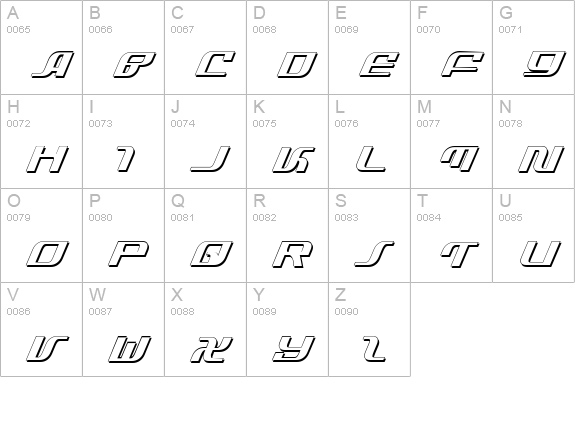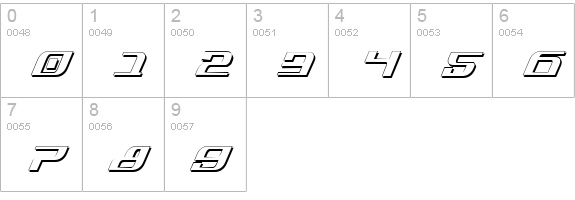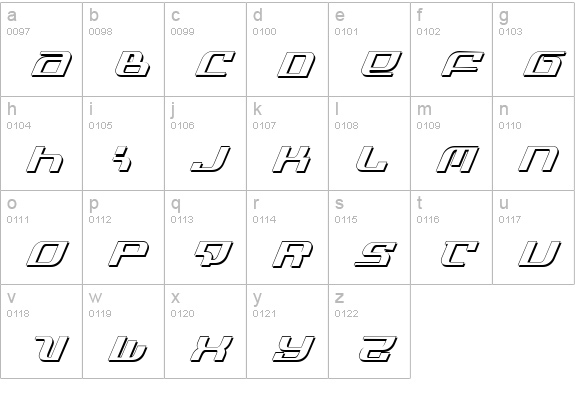
The Infinity Formula Shadow Ital font is a striking and unique typeface that exudes a sense of mystery and elegance. Its intricate design features delicate shadow effects that add depth and dimension to each letter, making it perfect for adding a touch of sophistication to your projects. This font is freely available to download at FontsMarket.com, allowing you to easily incorporate its artistic flair into your designs without any cost. Whether used for headlines, logos, or graphic elements, the Infinity Formula Shadow Ital font is sure to captivate and impress with its stylish and modern aesthetic. Elevate your design projects with this free and versatile font today!